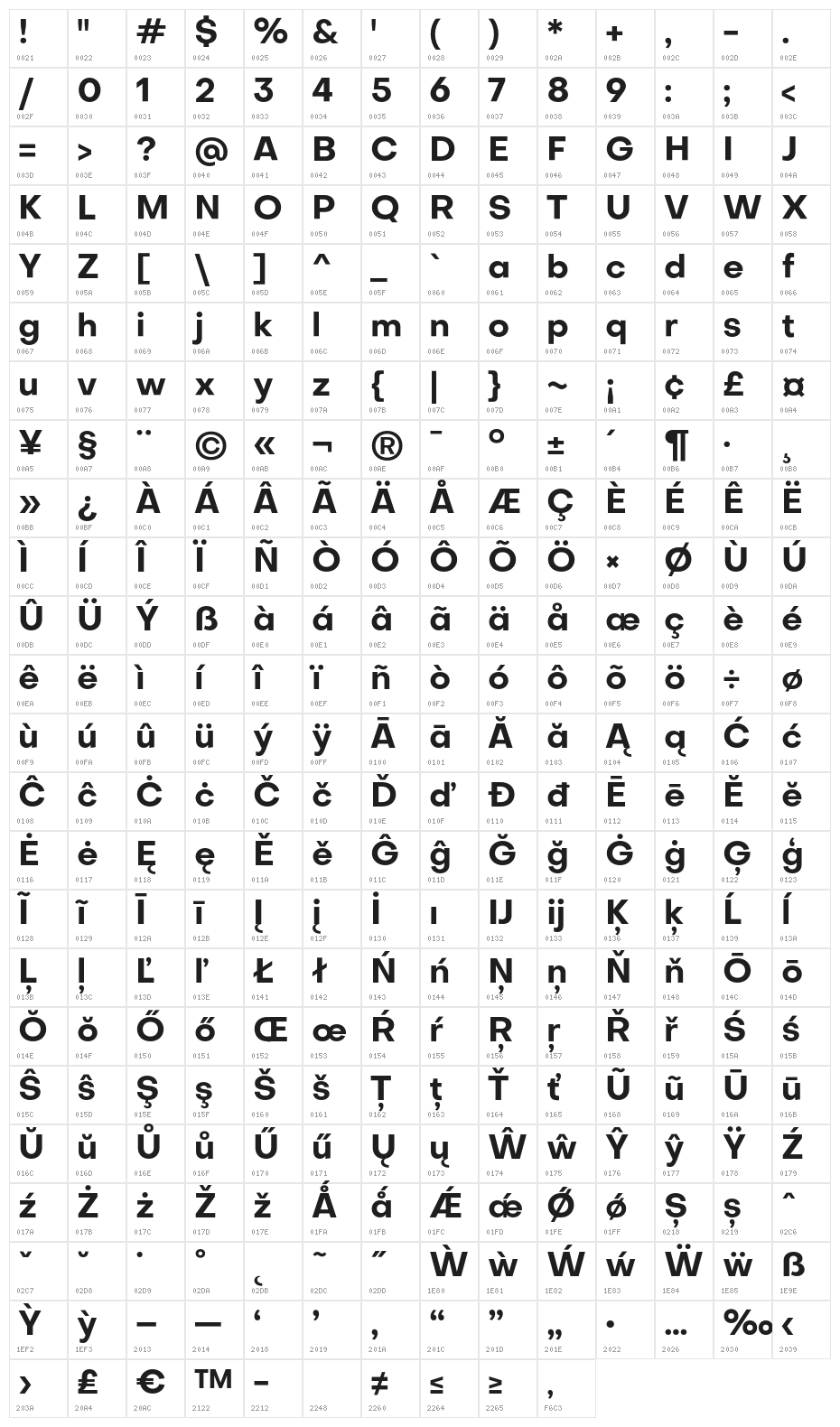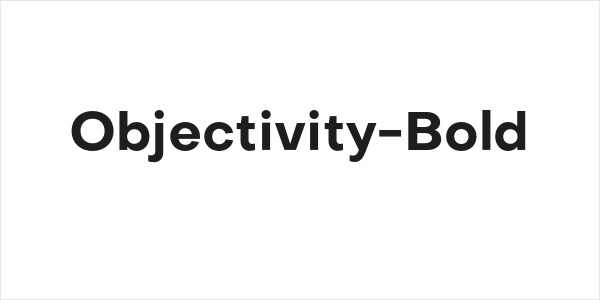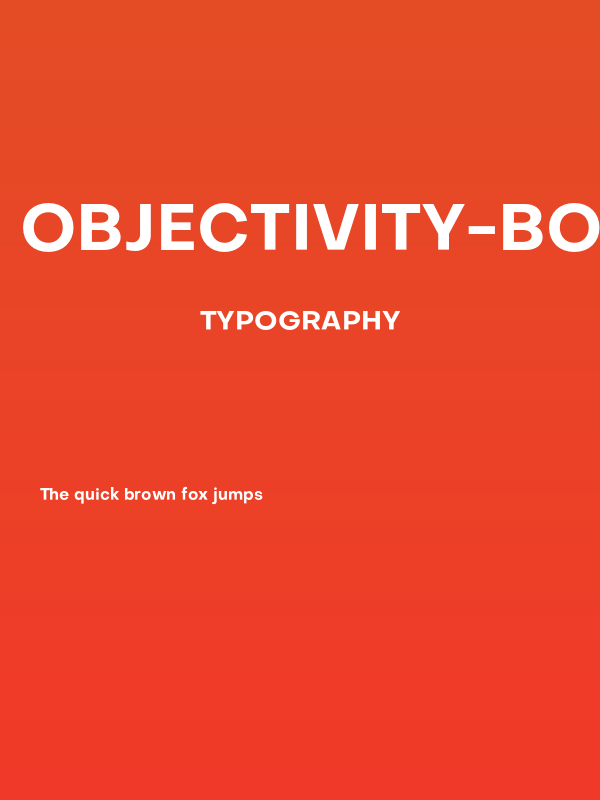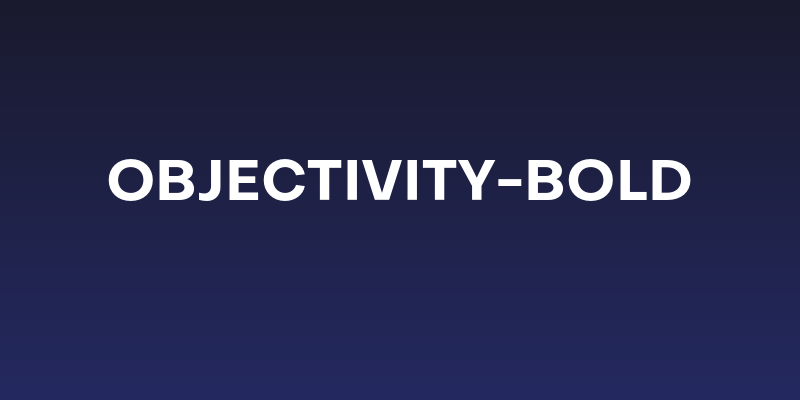
Objectivity-Bold Font
Objectivity-Bold Description
This font presents a bold and modern sans-serif style, characterized by clean lines and a strong presence. The uppercase letters are uniform in height, providing a sense of stability and balance. The lowercase letters maintain a consistent x-height, enhancing readability. The numerals are clear and distinct, making them suitable for various applications. Special characters are well-defined, ensuring versatility in usage. The overall design is straightforward and impactful, making it ideal for projects that require a contemporary and assertive look.
| Use Case | Headlines, Logos, Advertising |
| Proposed Projects | Ideal for branding, advertising, headlines, and digital media where a modern and bold statement is needed. |